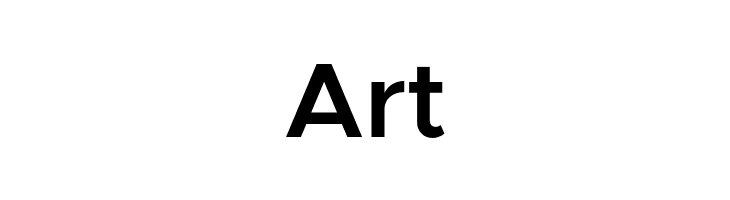
A sleek, modern, light italic sans-serif font with elegant slant and clarity.
A bold, italic typeface with a modern and dynamic style.
A minimalist set of line-based icons with a modern and clean design.
A modern, geometric sans-serif font with bold, clean lines.
A bold, modern typeface with rounded edges and uniform strokes.
A bold, playful font with thick, rounded characters and a friendly aesthetic.
A graceful, light, and italicized font with elegant curves and a sophisticated style.
A playful, rounded font with a friendly and approachable style.
A bold, modern font with a slightly condensed width and strong presence.